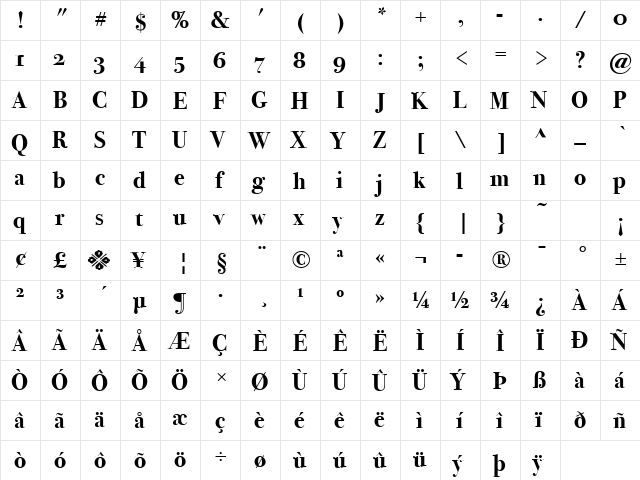
Bodoni SvtyTwo OS ITC TT Bold Font Preview
Bodoni SvtyTwo OS ITC TT Bold
Bodoni SvtyTwo OS ITC TT Bold Font Details
Design Context for Bodoni SvtyTwo OS ITC TT Typeface
Bodoni SvtyTwo OS ITC TT offers clean, dependable letterforms without strong stylistic allegiance, making it a practical choice for designers who need flexibility. The heavy weight commands attention and anchors typographic hierarchies.